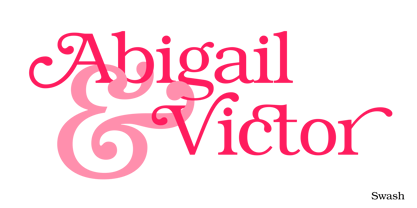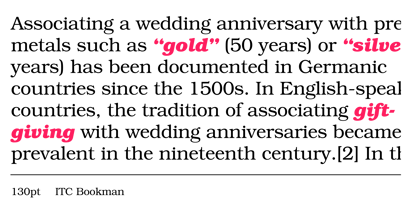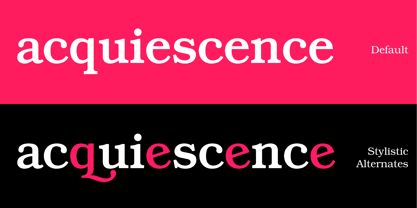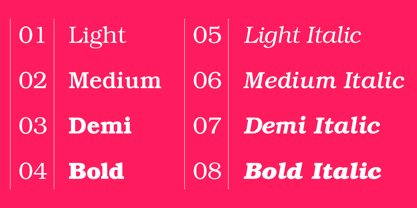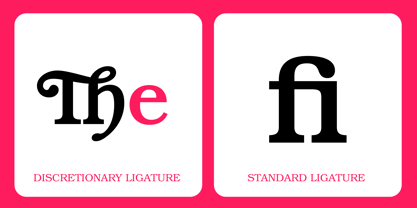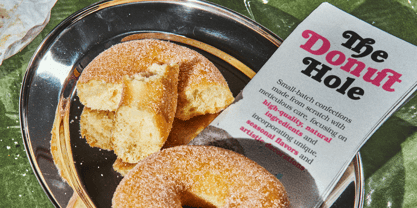
ITC Bookman®
La familia tipográfica ITC Bookman fue diseñada por Edward Benguiat y publicada por ITC. ITC Bookman contiene 8 estilos y opciones de paquete familiar.
ITC Bookman is a reinvention of one of America’s most recognizable serif families, redesigned in the 1970s by master lettering artist and type designer Edward Benguiat for the International Typeface Corporation (ITC). While earlier Bookman versions carried a staid, 19th-century look, Benguiat modernized the design with a larger x-height, refined stroke contrast, and expansive italic and swash character sets. The result is one of ITC’s most versatile revivals. A typeface family that retains the warmth of traditional book typography while supporting the needs of contemporary digital and print environments.
Whether it’s audio platform branding, podcast show titles, or point-of-purchase signage, ITC Bookman retains the warmth of traditional typography while supporting the needs of contemporary digital and print environments.